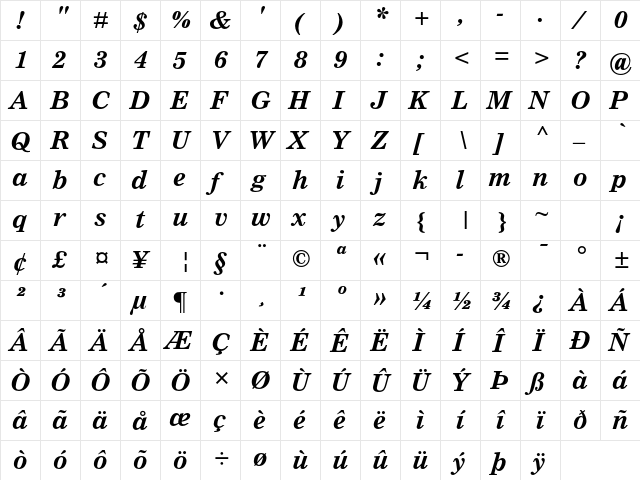
Nimrod MT Std Bold Italic
Design Context for Nimrod MT Std Typeface
Nimrod MT Std is a composed and adaptable typeface that performs quietly and consistently across a wide range of design contexts. The dynamic lean of this cut emphasises speed and emphasis in any layout. Its bold stroke weight gives it real presence on the page.
Pro Tip: Try Nimrod MT Std for annotation and caption copy alongside an upright companion — the contrast in angle creates a dynamic but ordered typographic system.